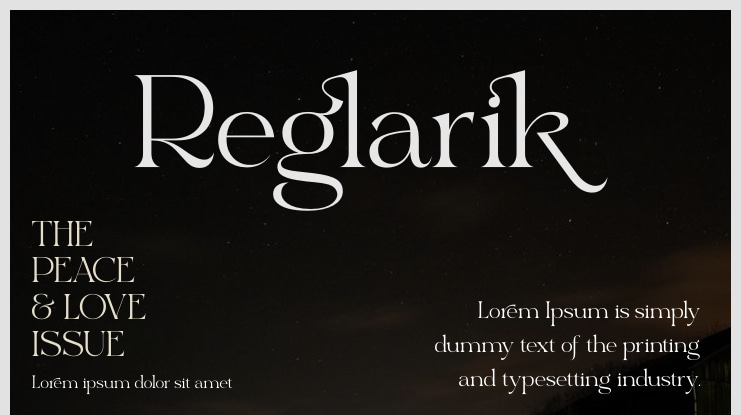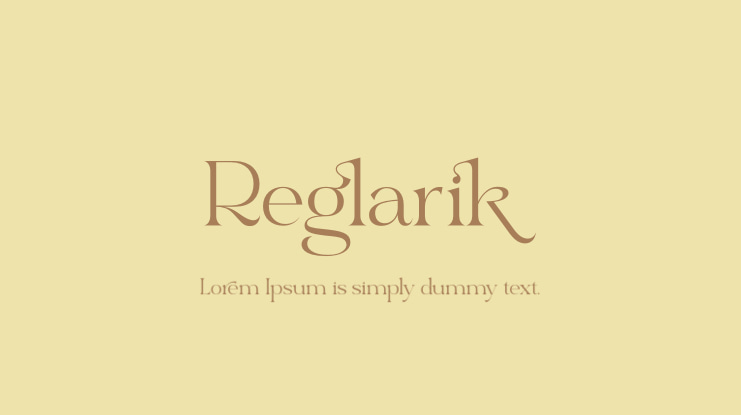
Reglarik Font
Reglarik | Modern Serif is a versatile font suitable for a variety of projects including logos, branding, homeware designs, product packaging, quotes, posters, and more. This font adds a beautiful script taste to your projects.